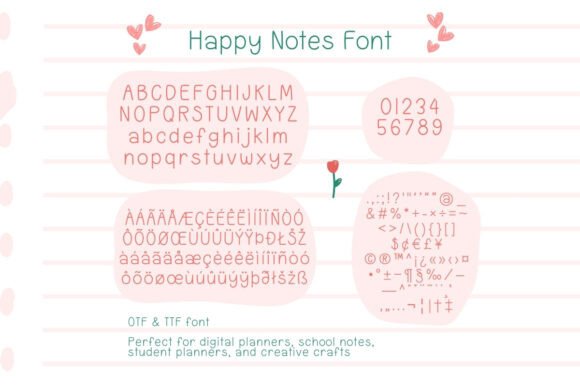
Happy Notes Font
Happy Notes Font | Minimal Handwriting Font for School Notes, Digital Planners, GoodNotes, Notion, Procreate, Canva, Crafts, Journaling, and More Happy Notes is a minimal and charming handwriting font designed for anyone who loves neat and clean designs. Perfect for school notes, student planners, digital planning, and crafting projects, this font brings a cheerful and organized touch to your creations.Ideal for use in GoodNotes, Procreate, Canva, and Cricut, Happy Notes is versatile and easy to read, making it suitable for both digital and printable projects. Whether you’re taking notes, creating planners, or crafting unique designs, this font is here to inspire!✨ Minimal and stylish handwritten design ✨ Perfect for both print and digital designs ✨ Compatible with Canva, Procreate, GoodNotes, iPad, Cricut, and more Add a joyful touch to your work with Happy Notes!